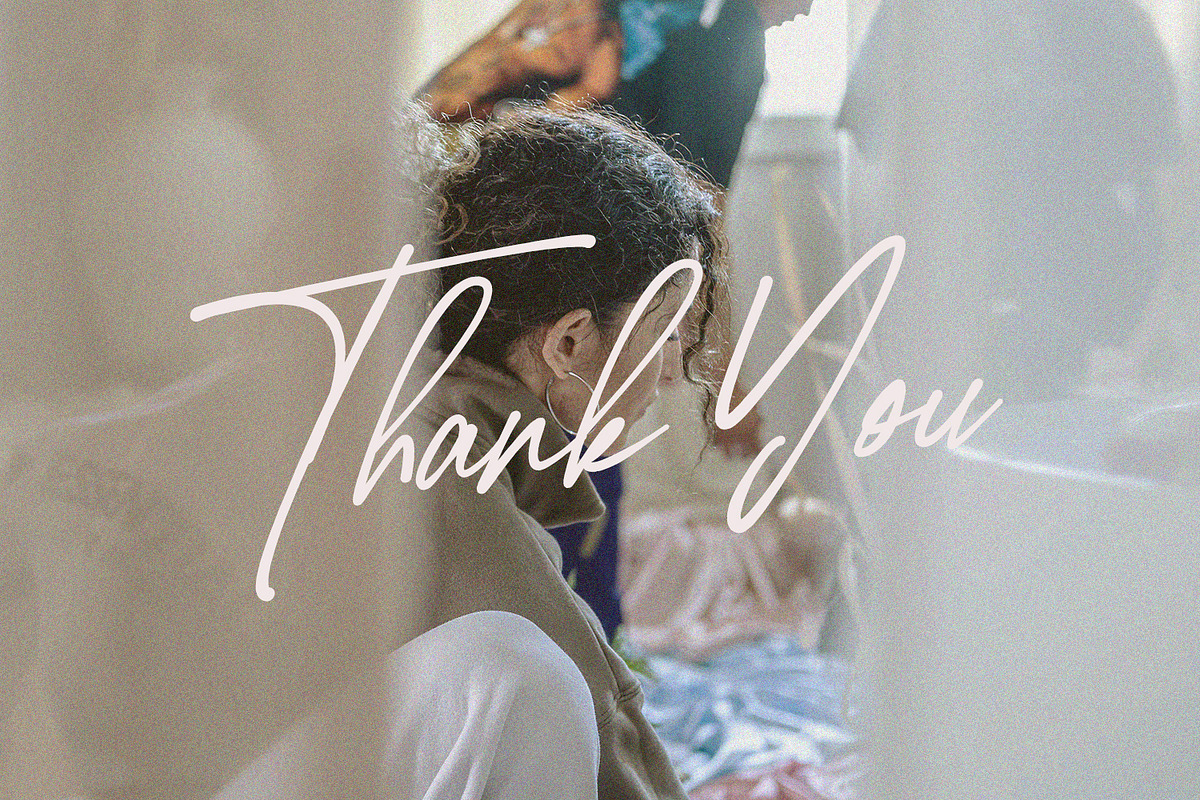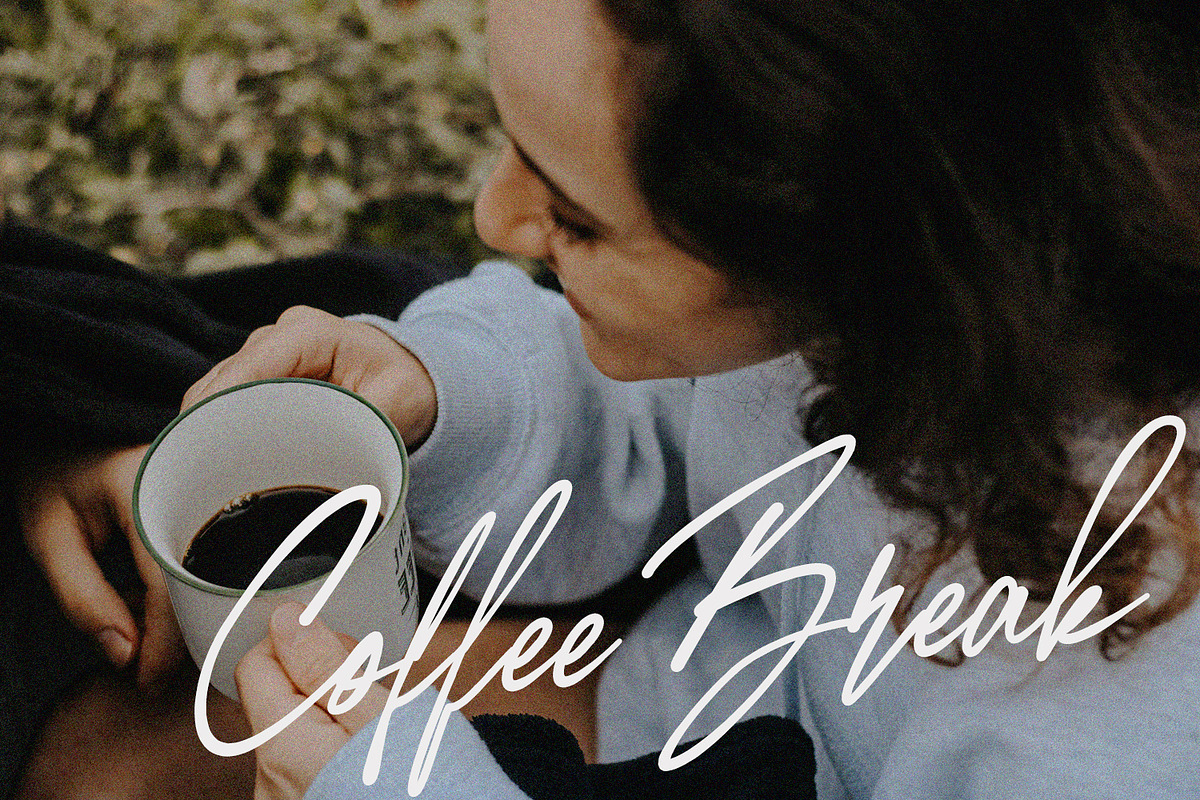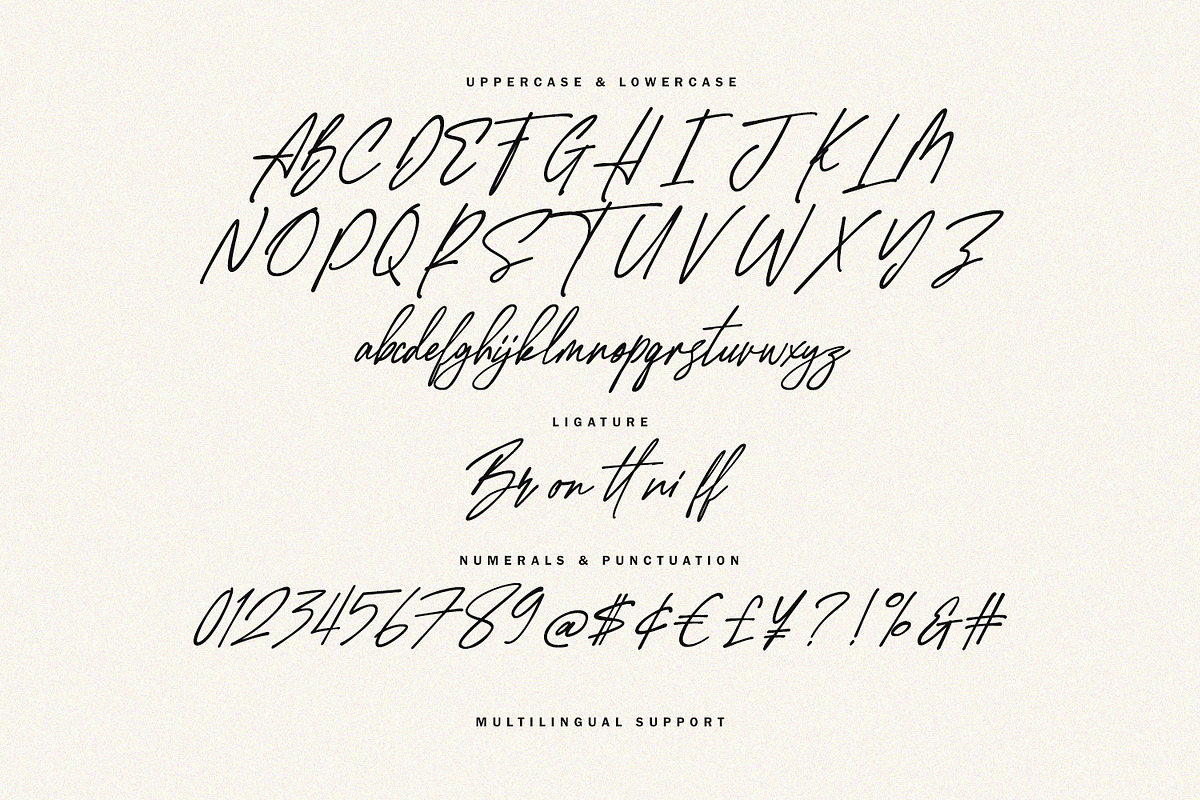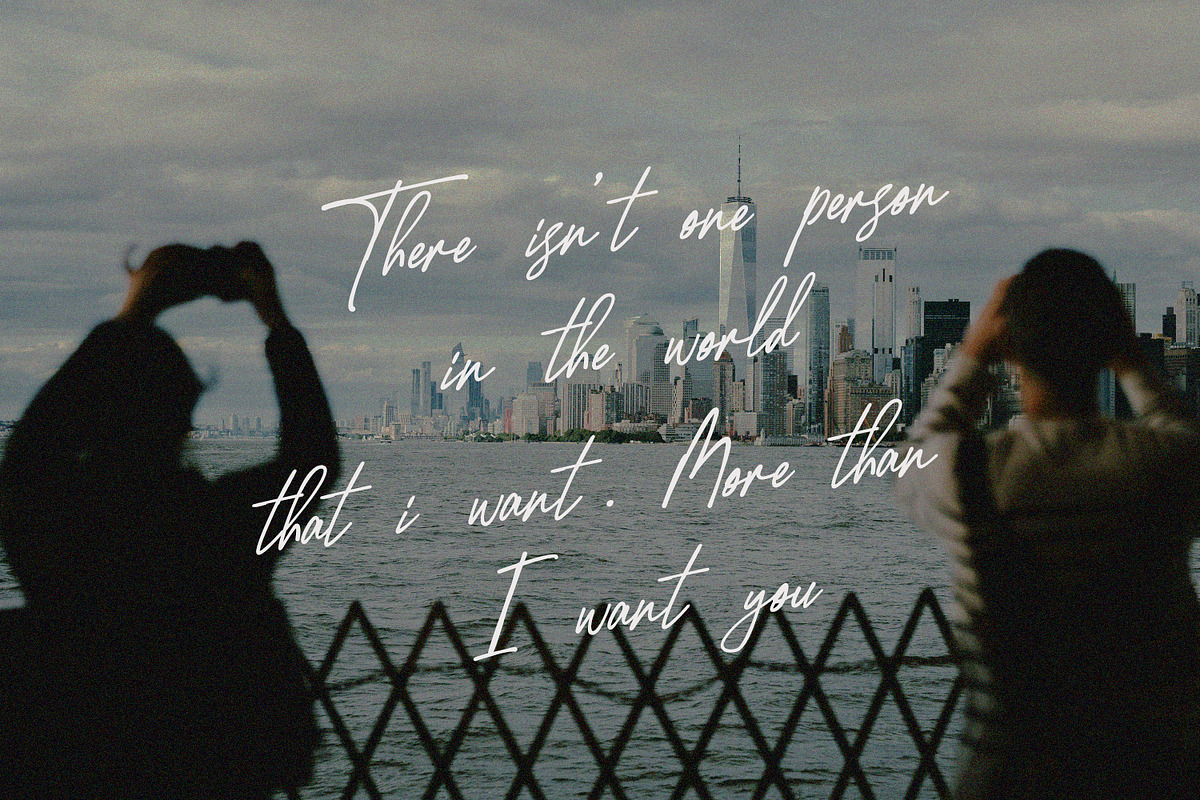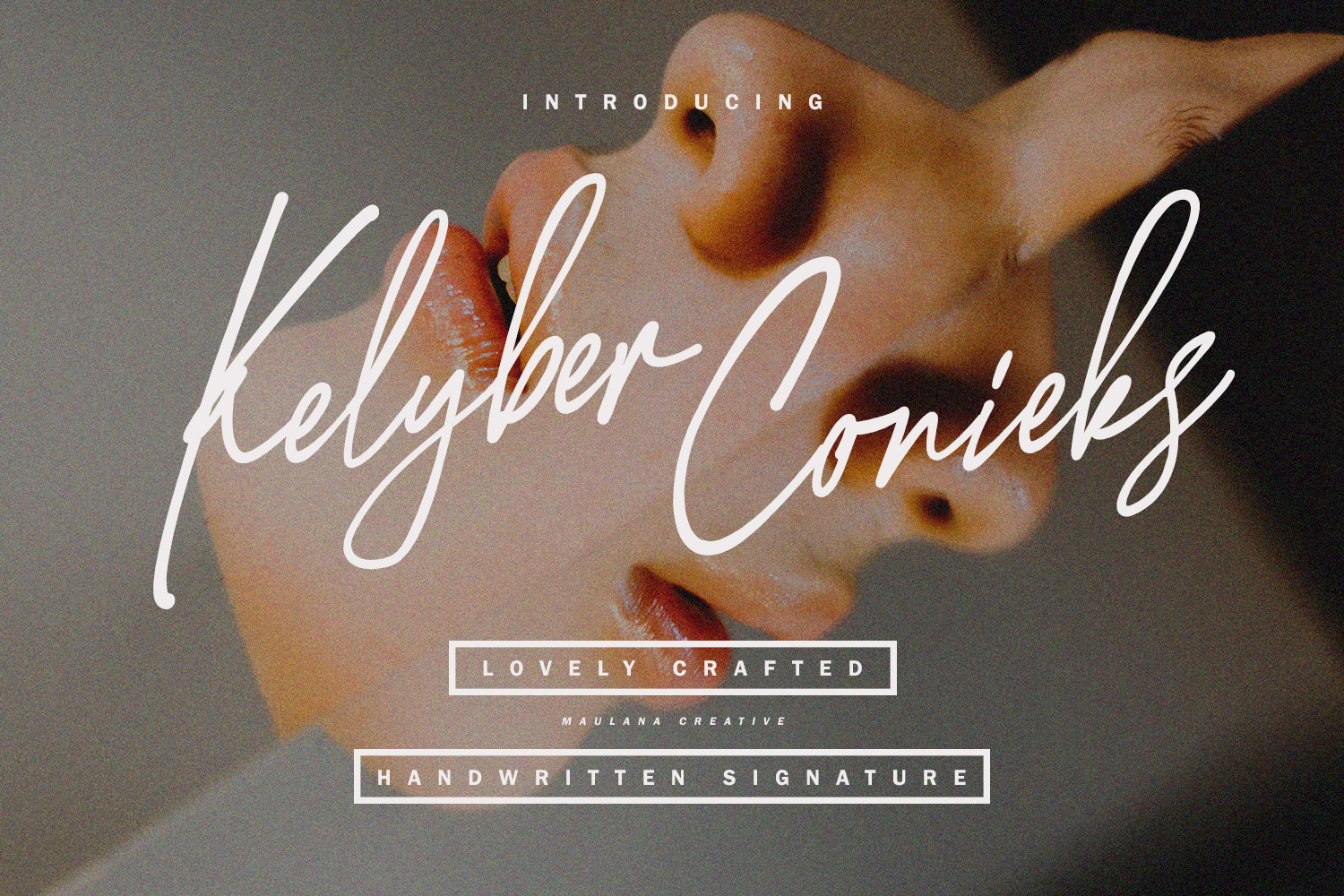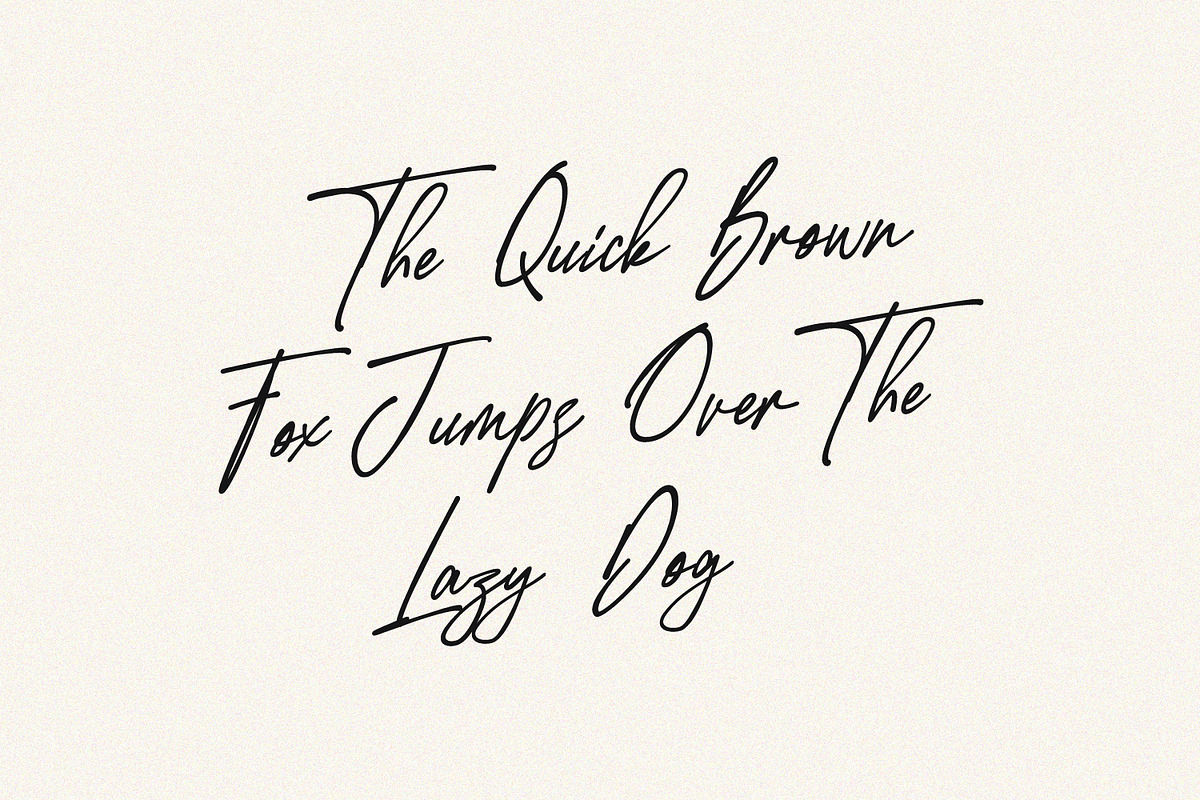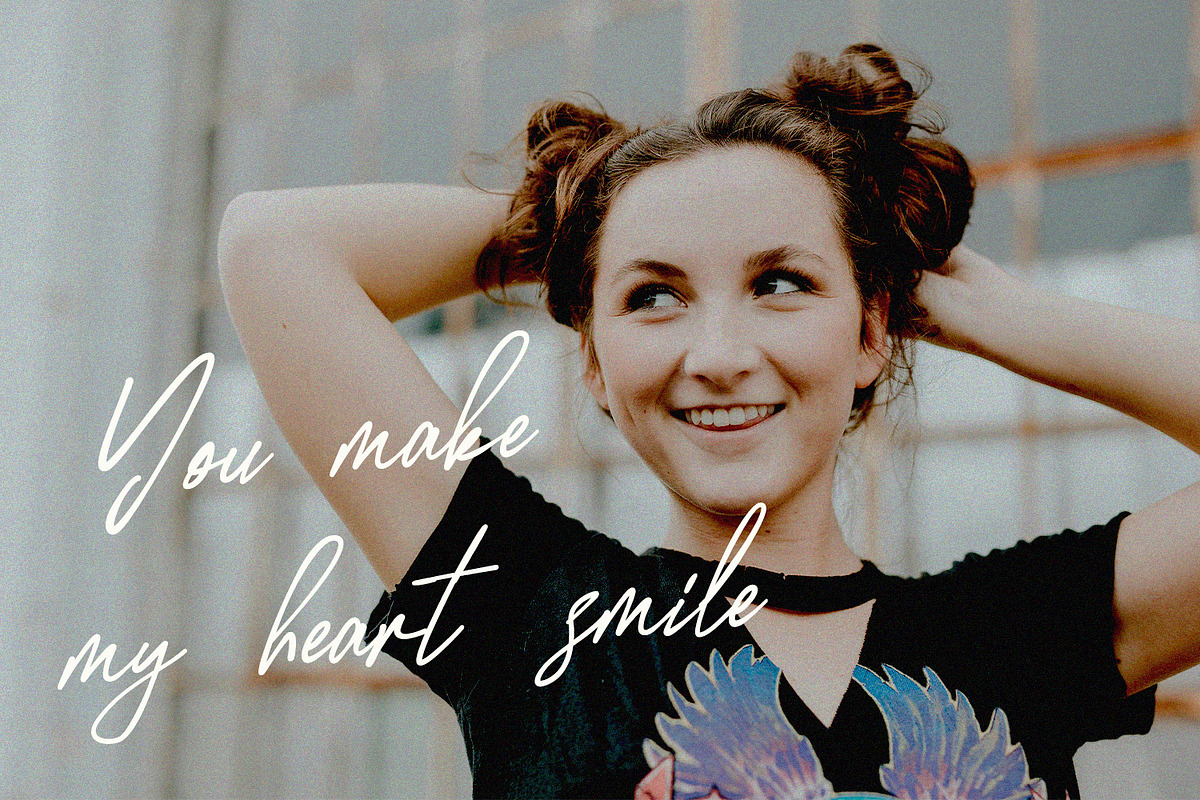
Kelyber Conieks Signature Font Love
Kelyber Conieks is a beautifully fluid and authentic handwritten signature script that effortlessly captures a sense of sophisticated natural style. This font is meticulously crafted to mimic genuine hand-lettering, making it perfect for projects that require a, upscale, and intimate touch.
- Natural Flow: The elegant, looping strokes and organic connections give your text a truly authentic, hand-drawn feel.
- Versatility: Ideal for a wide range of design needs, from high-end branding to personal stationery.
- High-End Appeal: Its refined script style is perfect for luxury products, fashion, beauty, wedding invitations, photography watermarks, and editorial design.
Kelyber Conieks is the perfect choice for:
- Branding & Logos: Create memorable, signature-style brand identities.
- Product: Add a touch of handcrafted luxury to your labels.
- Social Media & Quotes: Make your content stand out with elegant typography.
- Wedding & Event Invitations: Deliver a personalized and romantic feel.